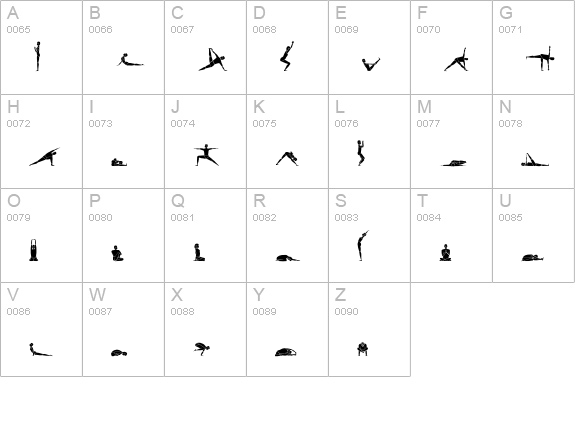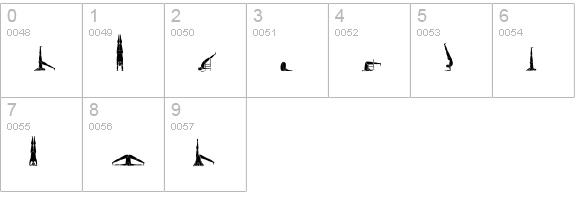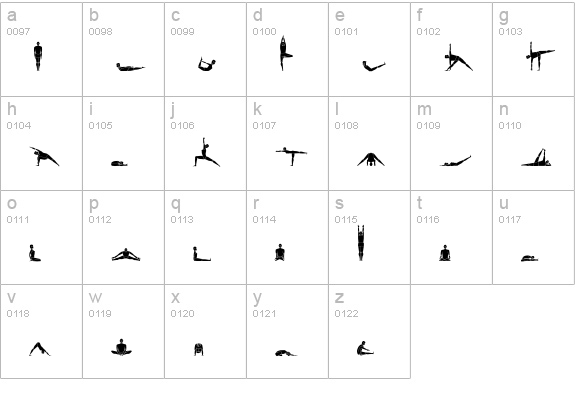
Yogafont Font Details
Introducing Yogafont - a beautifully crafted font that perfectly captures the essence of tranquility and mindfulness. This unique typeface combines elegant curves and soothing lines to create a harmonious aesthetic that is perfect for a wide range of design projects. Yogafont is not just a font, it is a visual representation of peace and balance. Its flowing strokes and gentle curves evoke a sense of calmness and serenity, making it ideal for wellness, yoga, meditation, and relaxation-themed designs. And the best part? Yogafont is available for free download at FontsMarket.com. This means you can easily incorporate this beautiful font into your projects without any cost. So why wait? Download Yogafont today and add a touch of tranquility to your designs.